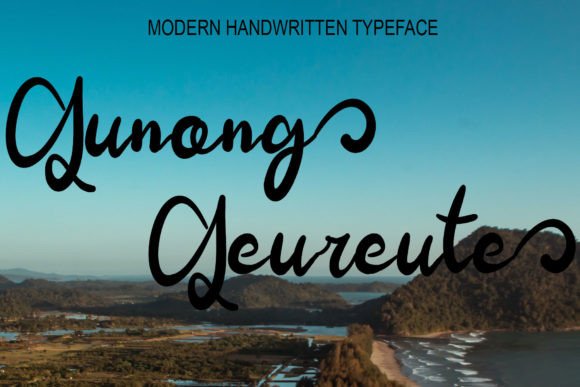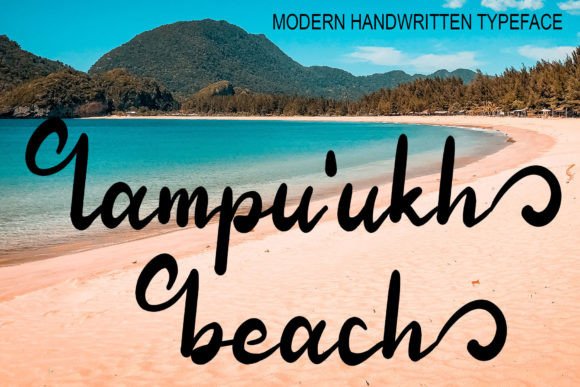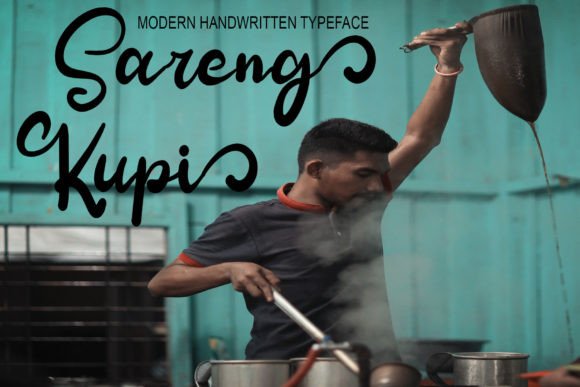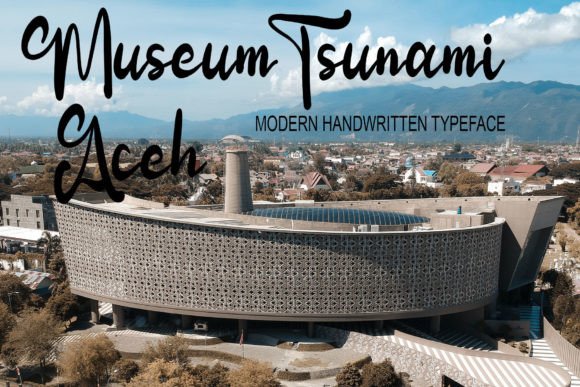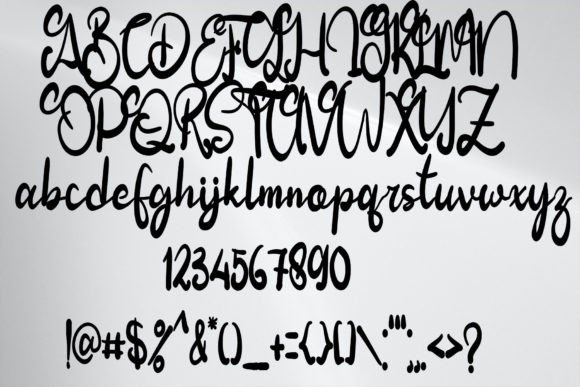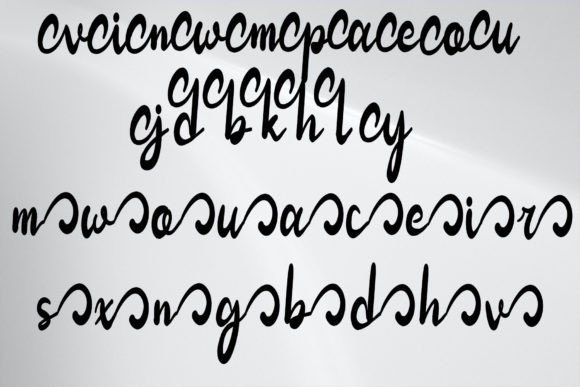
Unleashing Your Creativity with the Aceh Sumatra Font
You know that moment when you’re brainstorming ideas for a new project, and suddenly, the perfect font pops into your mind? It’s like a spark of inspiration that sets off a chain reaction of creativity. For designers, finding the right font can be the difference between a good design and a great one. And that’s exactly what the Aceh Sumatra Font offers – a modern handwritten typeface that’s perfect for adding a touch of playfulness to your next project.
Whether you’re designing logos, branding materials, or crafting unique wedding invitations, the Aceh Sumatra Font is an excellent choice. Its versatility and unique charm make it a valuable addition to any designer’s toolkit. With its wide range of applications, from social media graphics to planner prints, this font is sure to become your go-to companion for all your creative endeavors.
Aceh Sumatra Font Key Features
- Unique Characteristics: Features a unique blend of traditional and modern elements, with intricate details and ornaments inspired by Aceh and Sumatran cultures.
- Language Support: Supports multiple languages, including Indonesian, Malay, and English, with advanced language features such as ligatures and contextual alternates.
- Font Style: Available in regular, italic, bold, and bold italic styles, providing flexibility for various design applications.
Aceh Sumatra Font Review
Overall, I think Aceh Sumatra is a great font for cultural and historical projects. It has a unique, hand-drawn feel that adds a personal touch to your design. ✨ The font’s script-like quality makes it perfect for titles, headings, and other text elements that require a sense of elegance and sophistication.
- ✨ Unique, hand-drawn feel that adds a personal touch to your design
- ✨ Perfect for cultural and historical projects
- ✨ Great for titles, headings, and other text elements that require a sense of elegance and sophistication
However, there are a few limitations to consider. ⚠️ The font may not be suitable for large blocks of text, as the hand-drawn feel can make it difficult to read. Additionally, the font may not be as legible at smaller font sizes, which can make it challenging to use for body text.
- ⚠️ May not be suitable for large blocks of text
- ⚠️ May not be as legible at smaller font sizes
Overall, I think Aceh Sumatra is a great font for the right projects. With its unique, hand-drawn feel and perfect script-like quality, it’s a great choice for cultural and historical projects that require a sense of elegance and sophistication.
Aceh Sumatra Font: A Practical Application Guide
Use the Aceh Sumatra font for:
– Creating unique and exotic typography for cultural or travel-related designs.
– Adding a touch of elegance and sophistication to your designs.
– Creating a sense of authenticity and heritage in your designs.
Alternatives to Aceh Sumatra Font
Playfair Display is a luxurious and elegant serif font, perfect for high-end branding, luxury goods, and premium publications. It features intricate details and ornate flourishes, making it ideal for creating a sophisticated and refined look.
Comparison to Aceh Sumatra Font: While both fonts have a classic feel, Playfair Display is more ornate and luxurious, making it better suited for high-end applications. Aceh Sumatra Font has a more subtle and understated look.
Carolyna Pro is a modern and elegant serif font, ideal for fashion, beauty, and lifestyle brands. It features a clean and refined design, making it perfect for creating a sophisticated and stylish look.